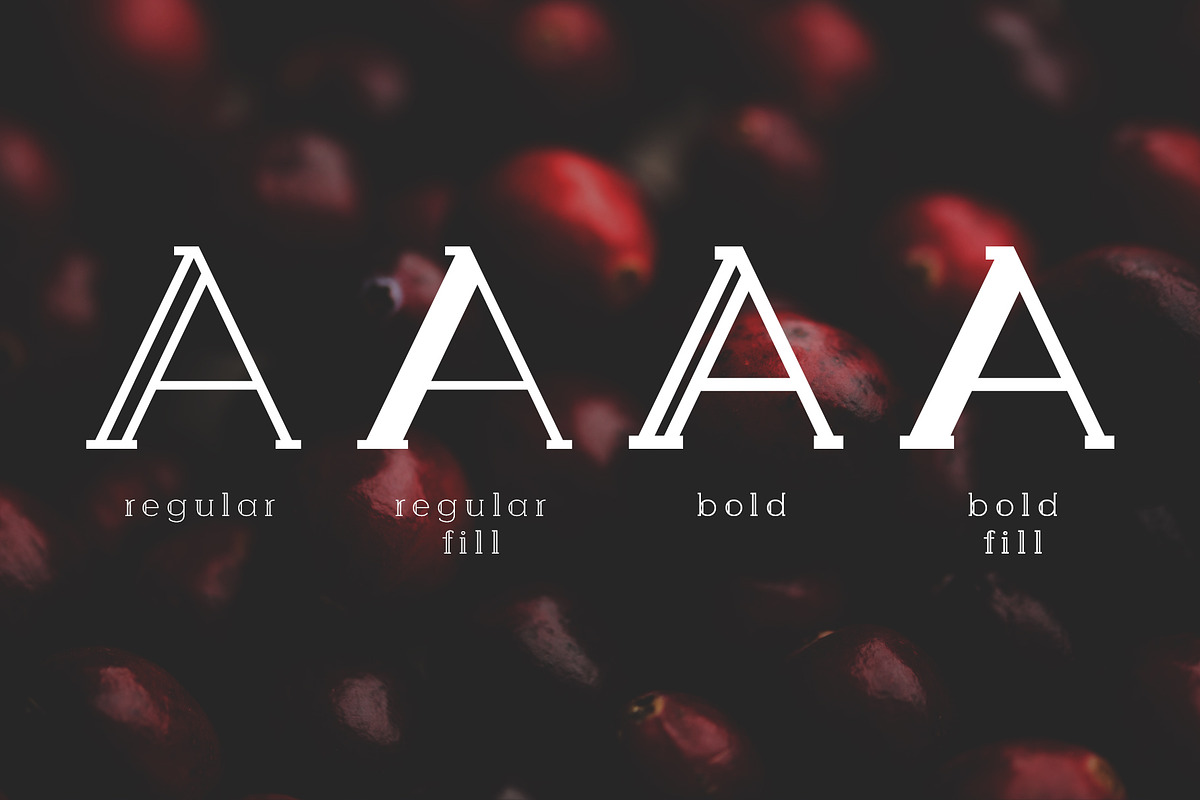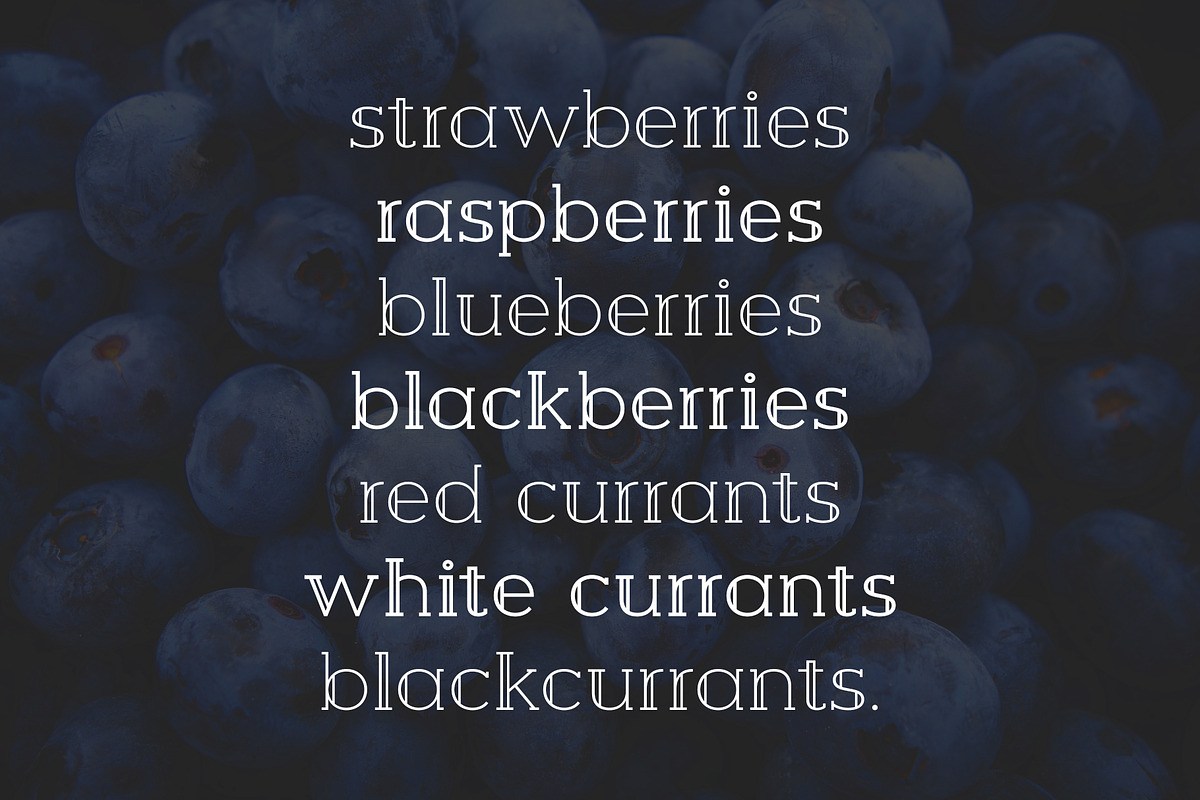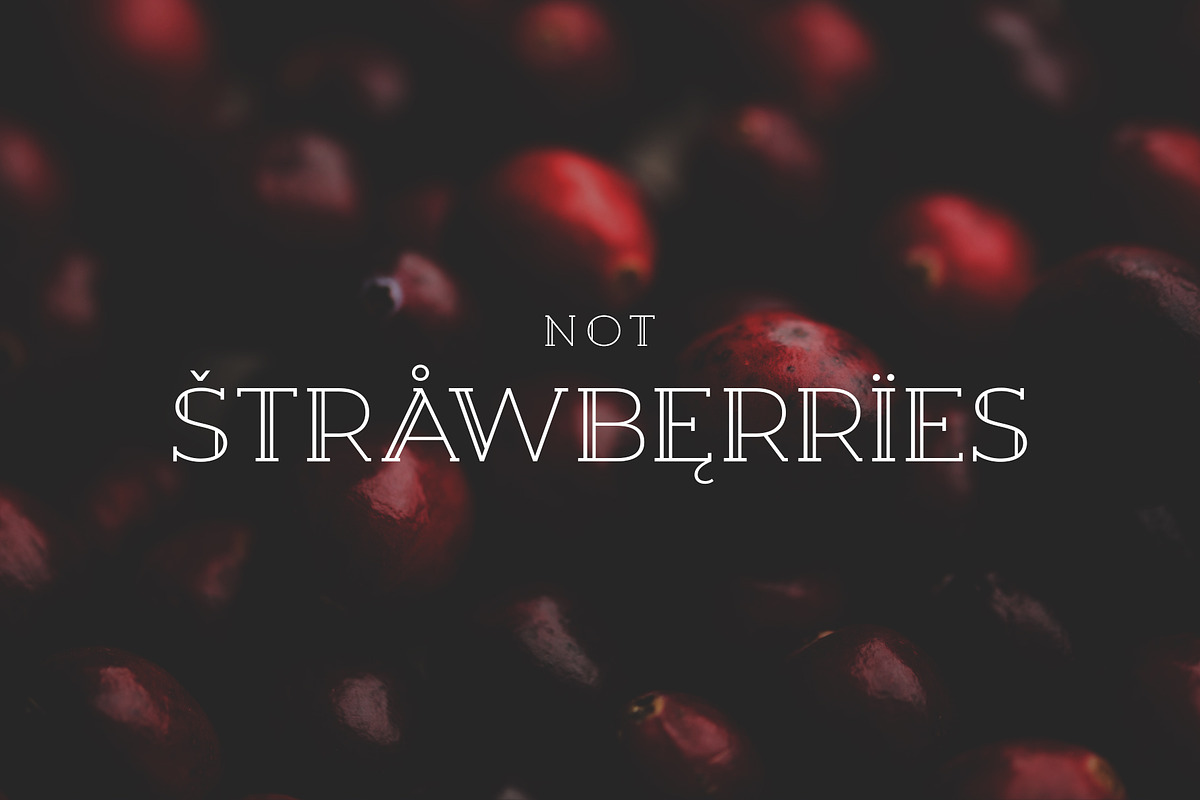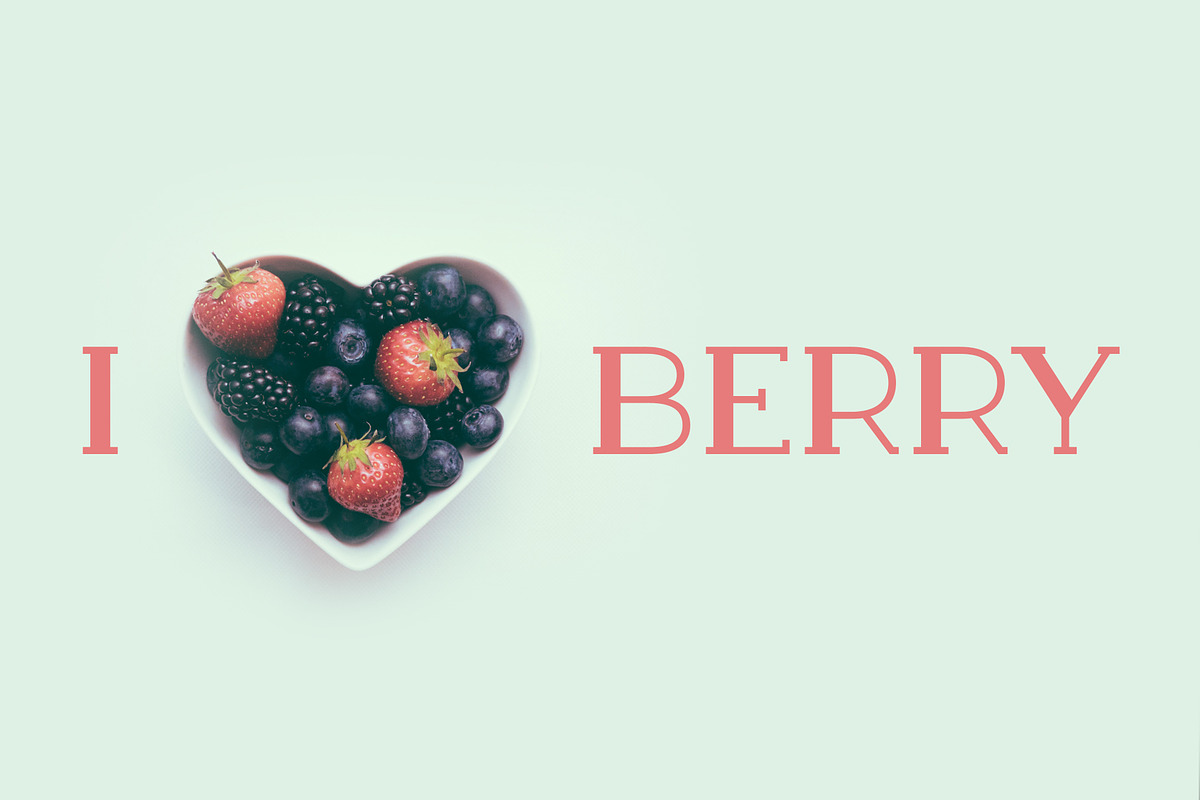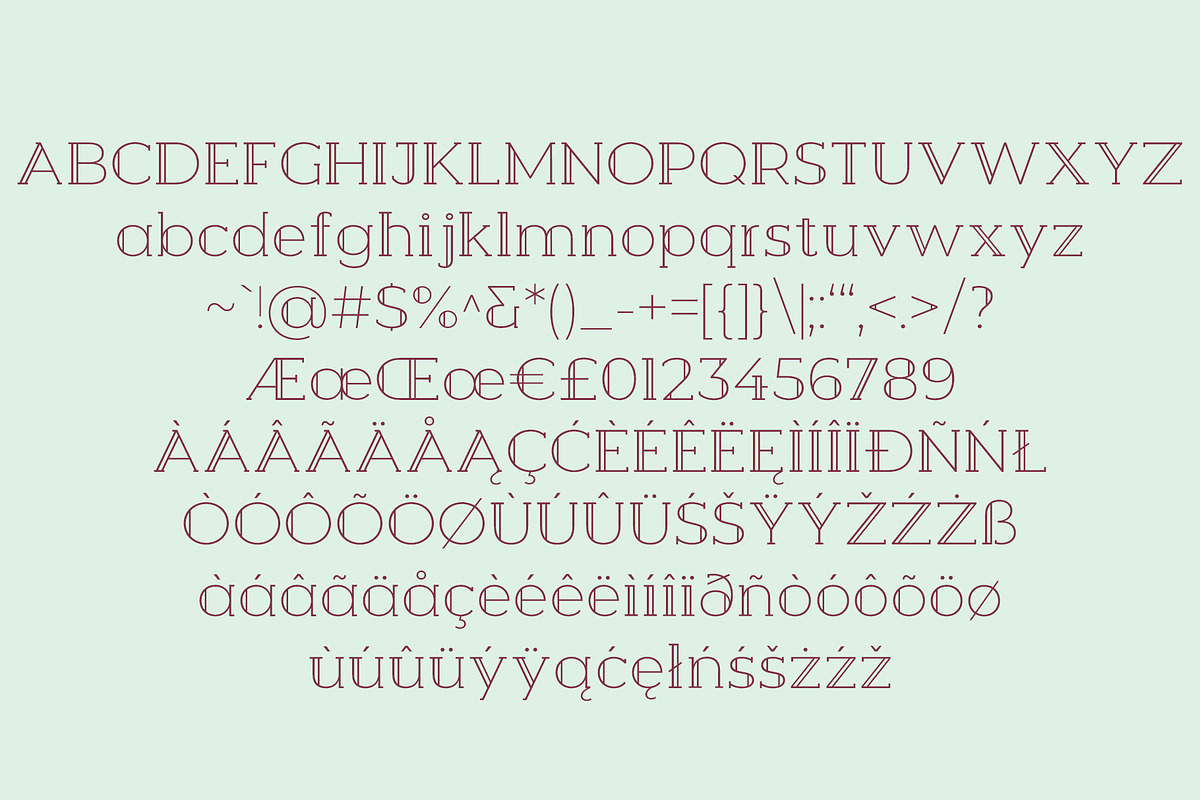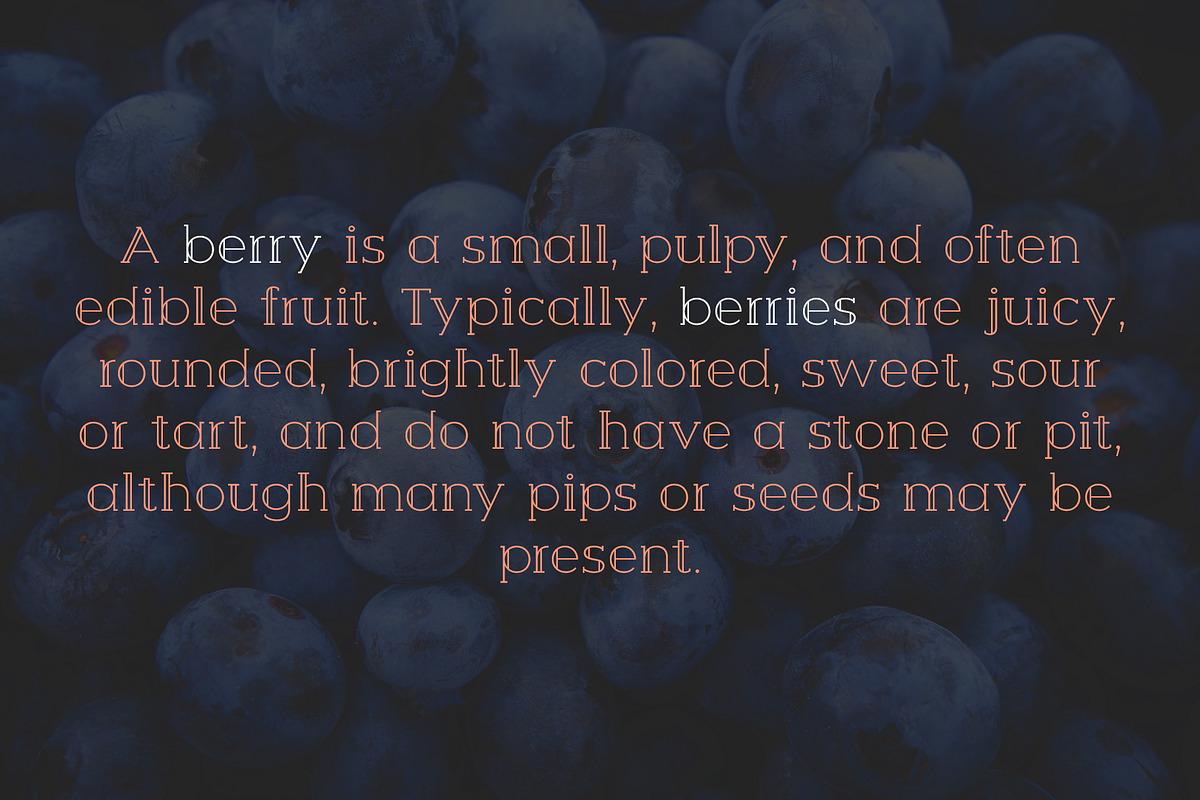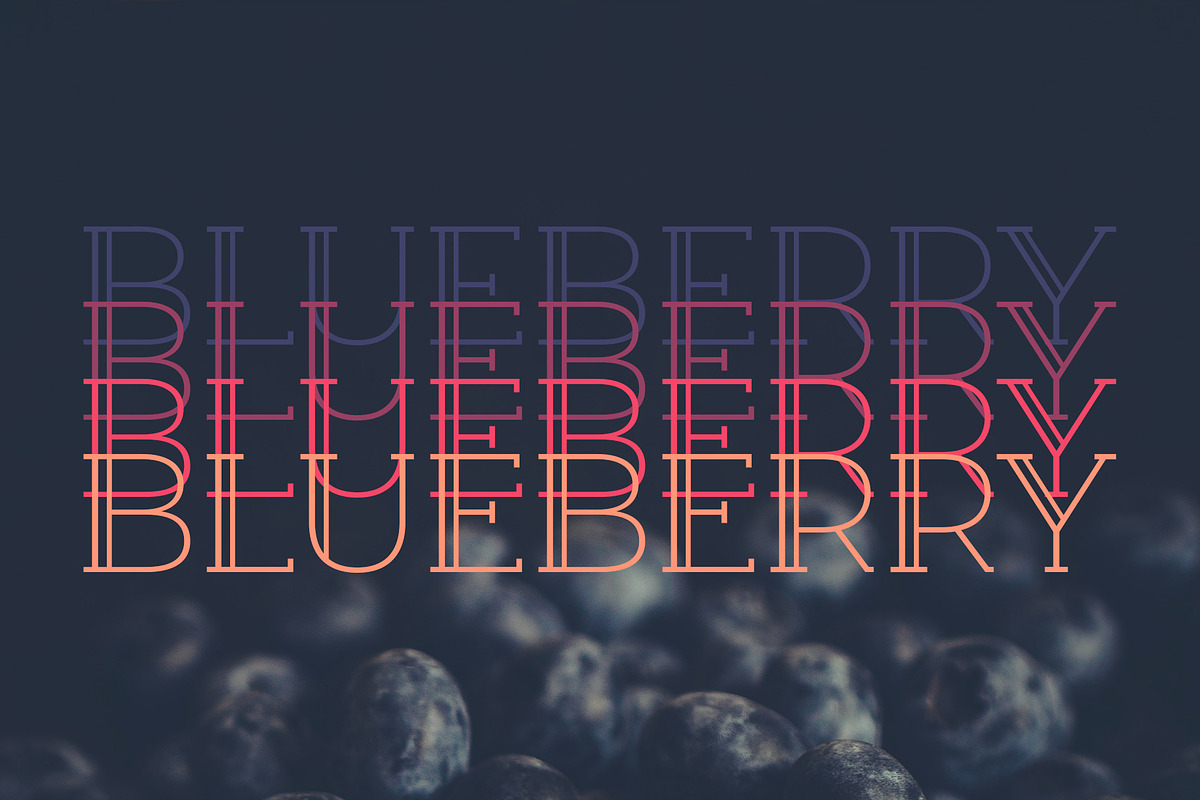
Berry Slab Serif Font
Uppercase and lowercase
Numerals and punctuation
Alternates and ligatures
- 2 font weights
- Uppercase and lowercase
- Numerals and punctuation
- Alternates and ligatures
- Multilingual support
- Berry Regular
- Berry Regular FIll
- Berry Bold
- Berry Bold Fill